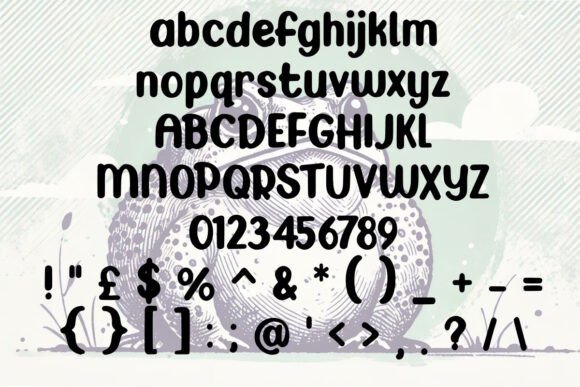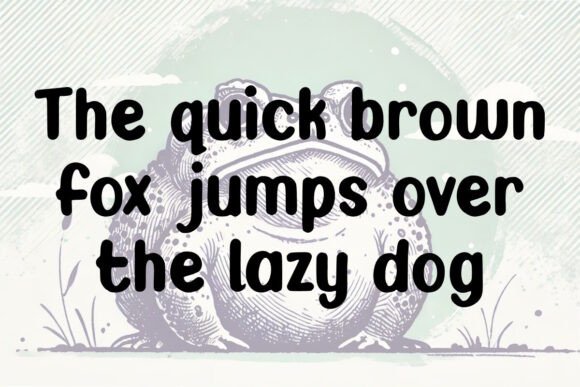
Introduction to Puffed Up Toad Font Font
Fonts play a crucial role in design, and the Puffed Up Toad Font font is a typeface that brings both character and versatility to any project. Whether you’re working on a branding project, a website, or a print design, the Puffed Up Toad Font font offers a unique style that can elevate your work.
Puffed Up Toad is a chubby, playful, and delightfully puffy font that looks like it just took a deep breath and isn’t letting go.
With its rounded, soft edges and slightly exaggerated letterforms, this font is full of personality—like a toad puffing itself up to make a statement Whether you’re designing for kids’ projects, playful branding, or just want a font that feels light, bouncy, and a little bit dramatic, Puffed Up Toad is here to hop into your designs.
Key Features of Puffed Up Toad Font Font
Why Choose Puffed Up Toad Font Font?
The Puffed Up Toad Font font is more than just a typeface – it’s a design tool that helps you communicate your message with style and clarity. Its unique character set and versatile design make it suitable for a wide range of applications, from elegant invitations to bold headlines.
With its carefully crafted letterforms and balanced proportions, the Puffed Up Toad Font font ensures readability and visual appeal across all mediums.
What makes Puffed Up Toad Font font special?
The Puffed Up Toad Font font stands out with its unique design, exceptional readability, and versatility across various design applications.